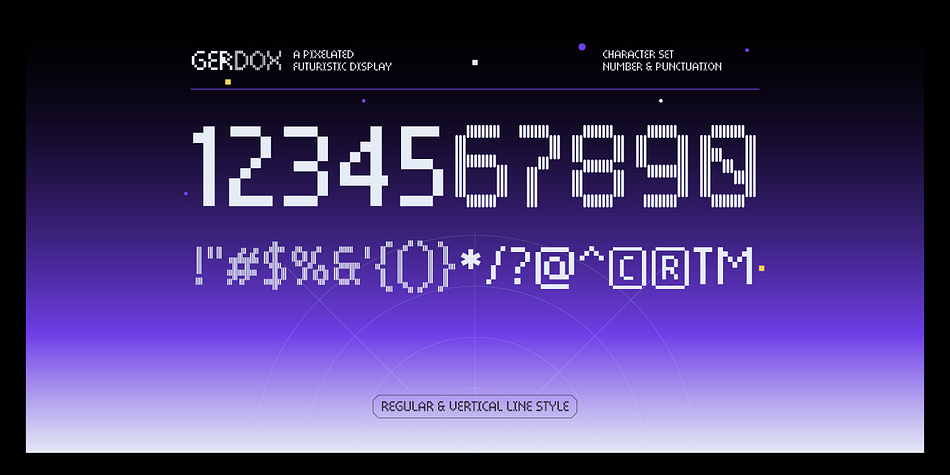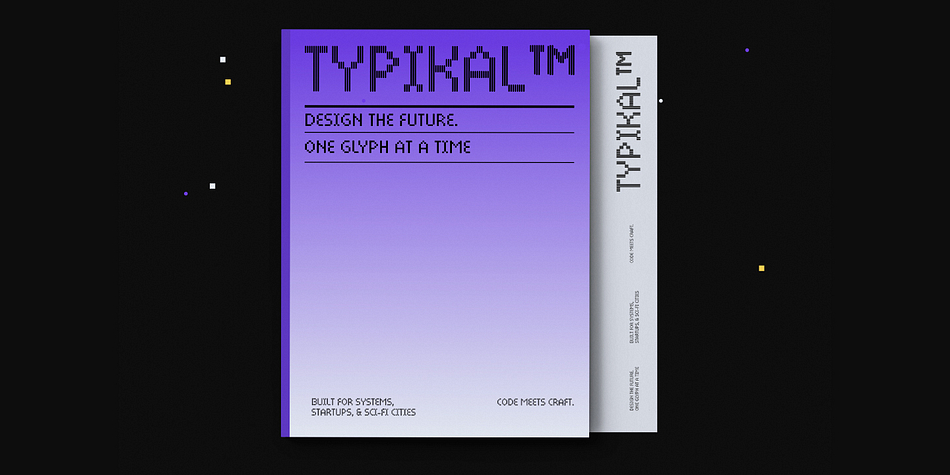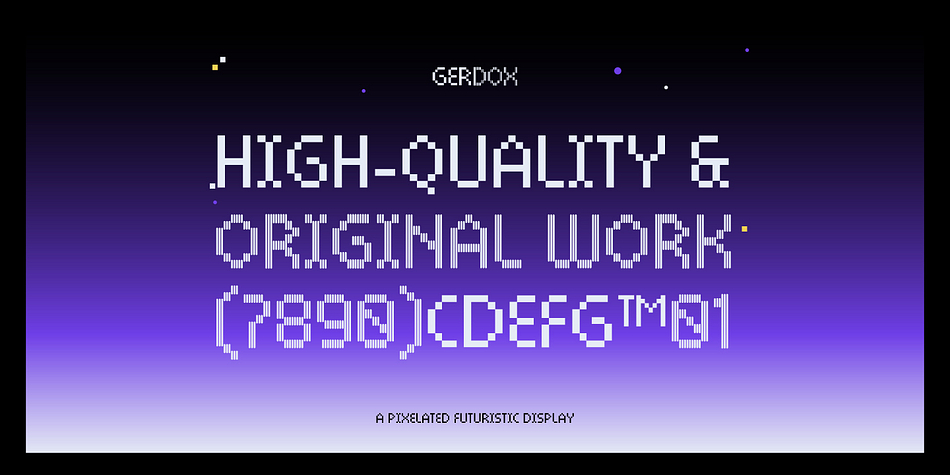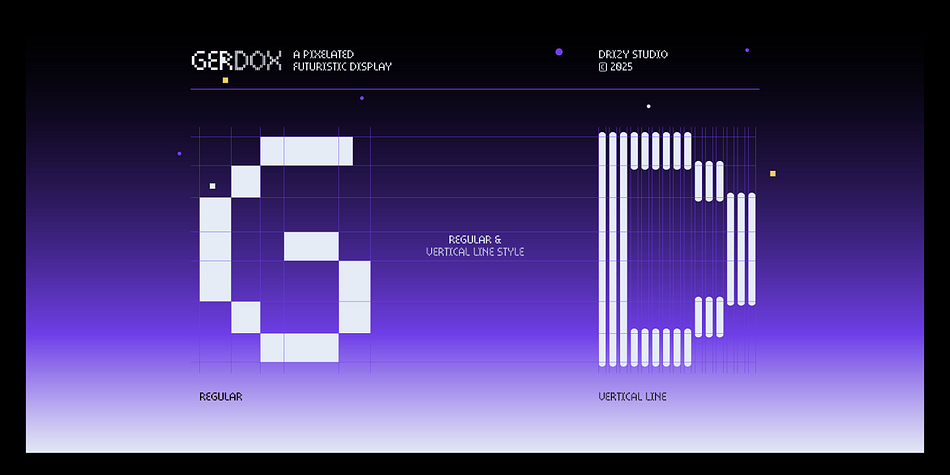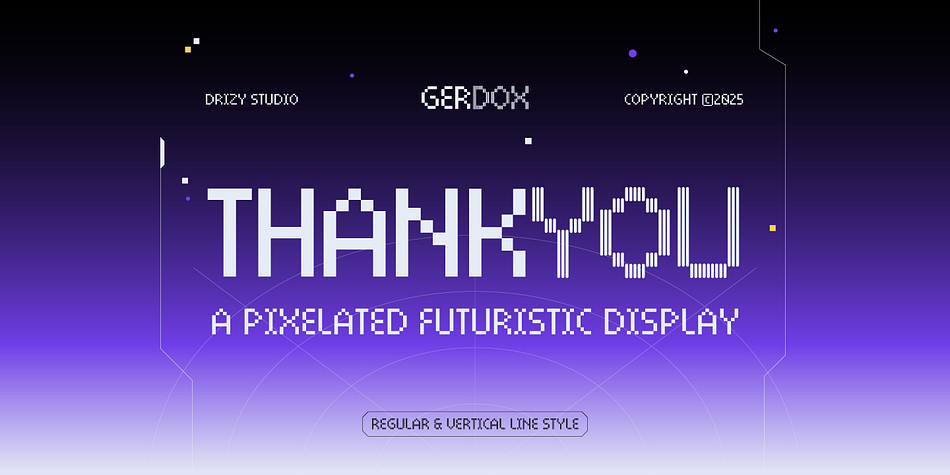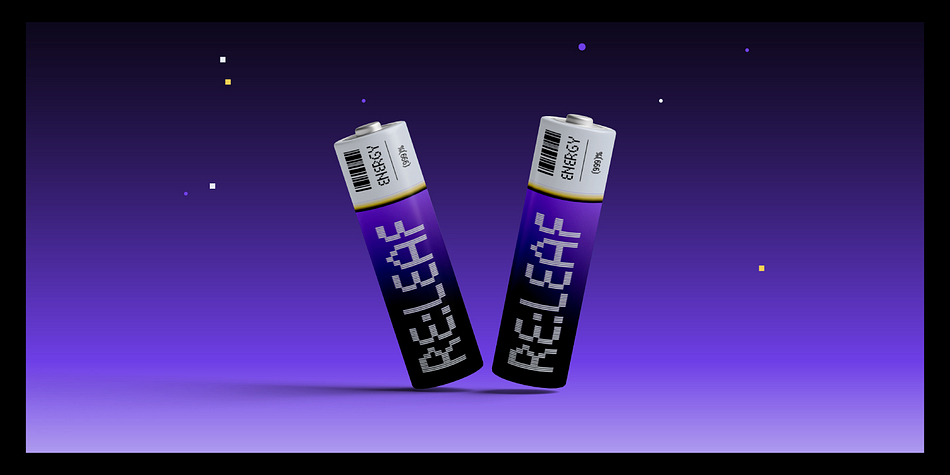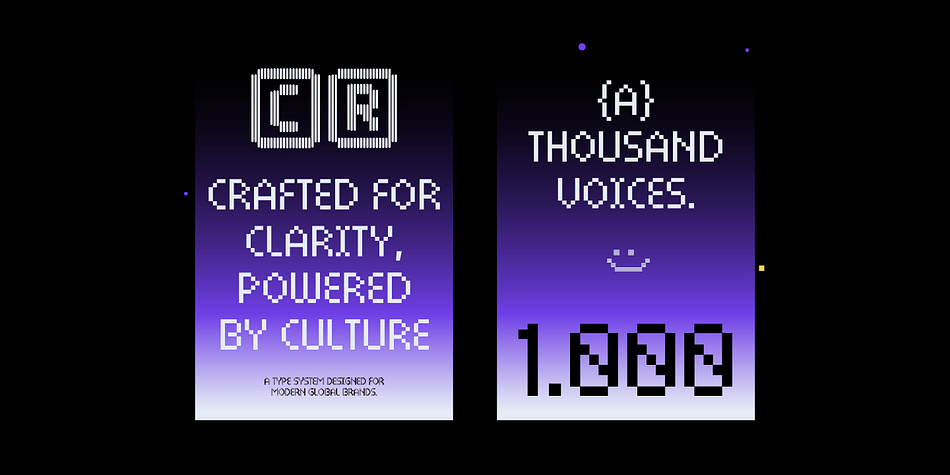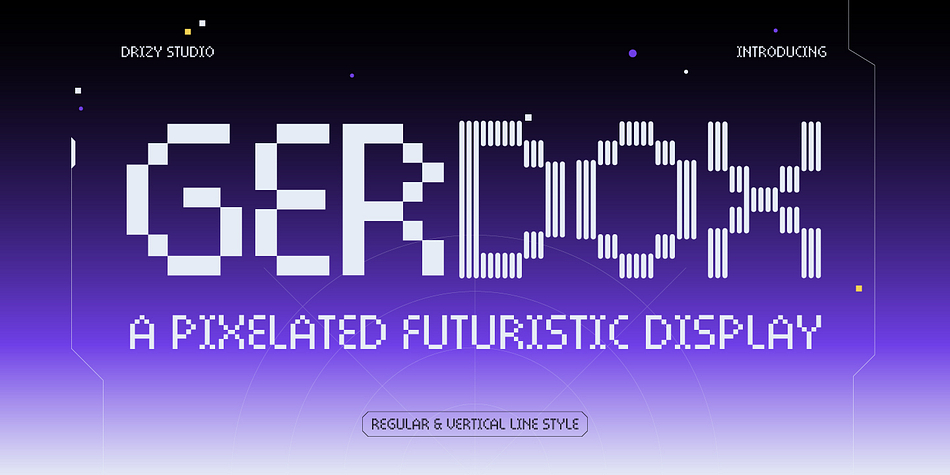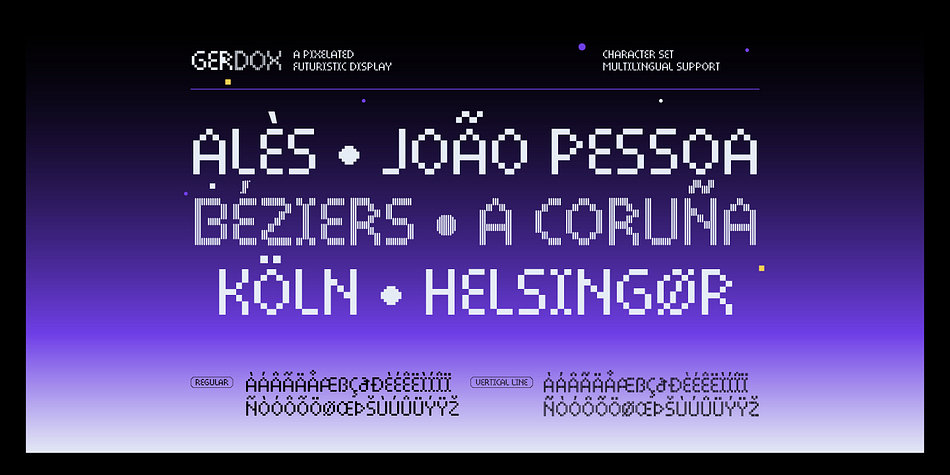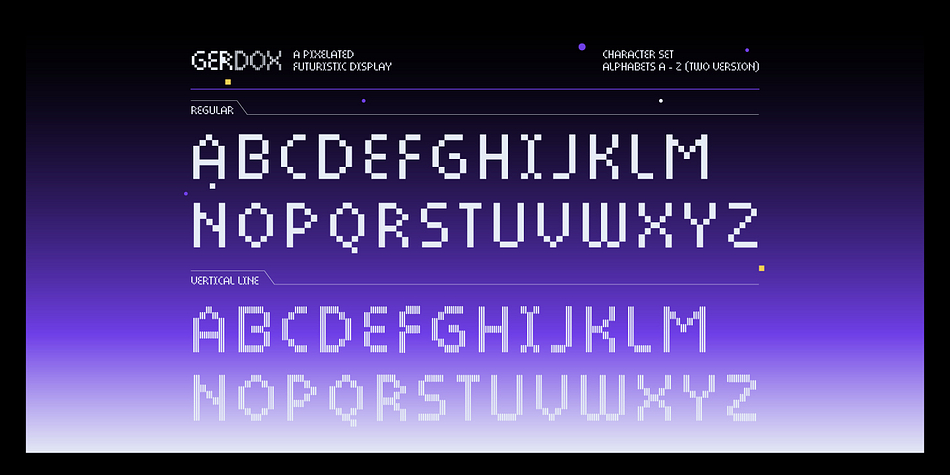
Gerdox
Designed by Panca Ahmadi Hasan, Gerdox is a pixel font family. This typeface has two styles and was published by Drizy Font.
Gerdox – Pixelated Futuristic Display Font
Gerdox – Pixelated Futuristic Display Font is a modular typeface that falls under the Futuristic Modular Line. Characterized by its pixelated, grid based structure, Gerdox embodies a digital, sci-fi aesthetic reminiscent of retro computer interfaces and modern cyberpunk visuals. Each character is constructed with sharp angles and blocky geometry, giving it a robotic and mechanical appearance. Its modular nature also makes it ideal for creative customization and dynamic typographic compositions.
Gerdox – Pixelated Futuristic Display Font features:
- Character Set (All Caps)
- Numbers & Punctuation
- Two Style Font: Regular & Vertical Line